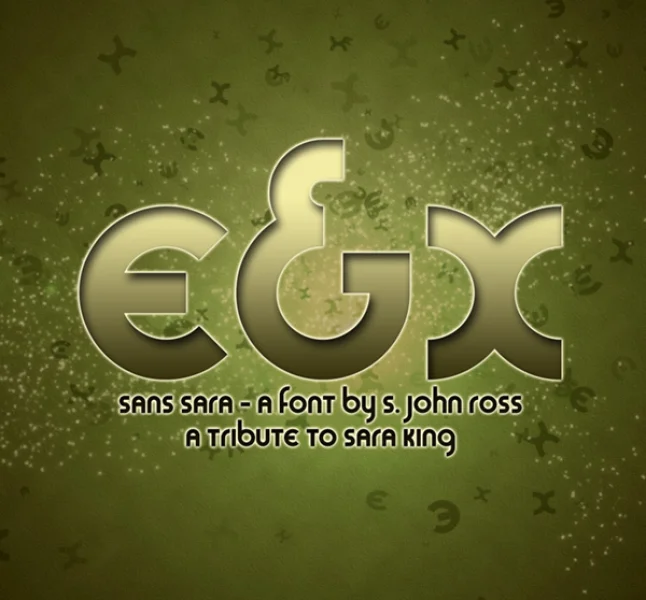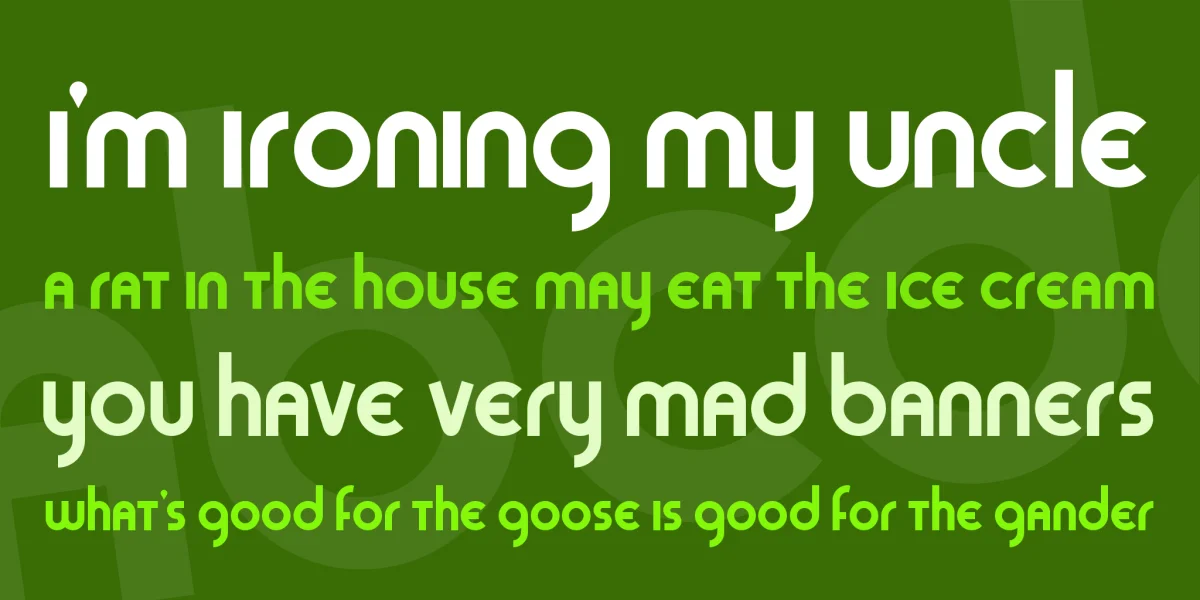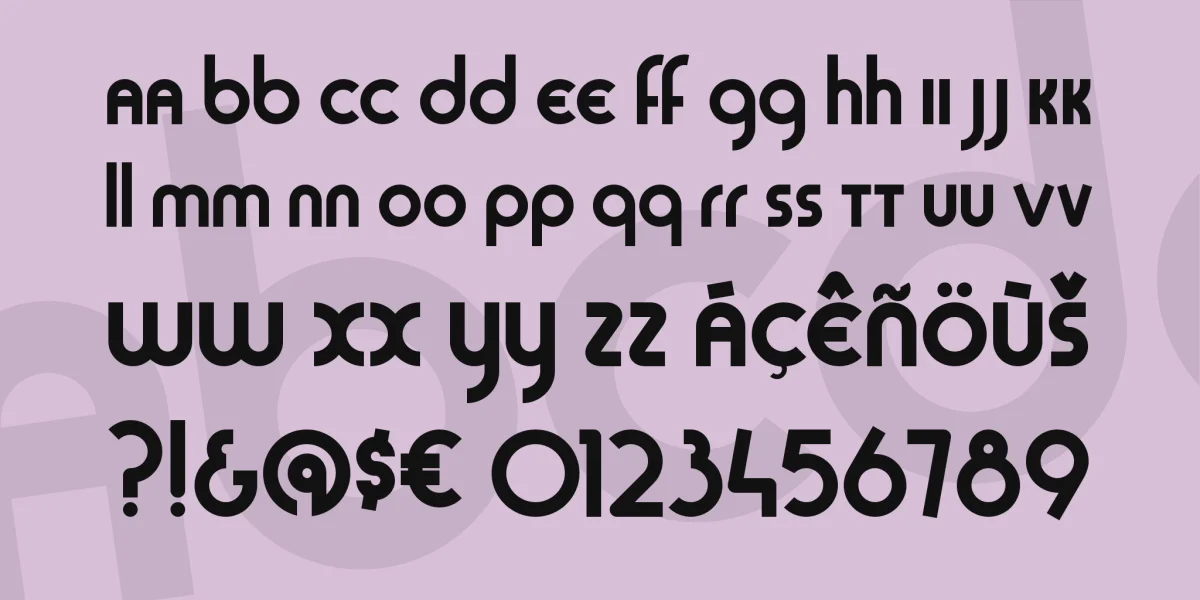
This is the initial release of a font with several future releases and related fonts planned. SANS SARA is an all-new Bauhaus-styled font modeled on two things: the style Herbert Bayer, and the style, writing, and even personality of Sara King, a woman my wife and I love very much. This release, finalized and released on Sara's birthday, is a tribute to her, one of many to come. The many playful and symbolic connections between Sara King and Herbert Bayer will be documented in a special PDF to be included with later releases ... but for now suffice it to say that every detail of the font is symbolic in some way.